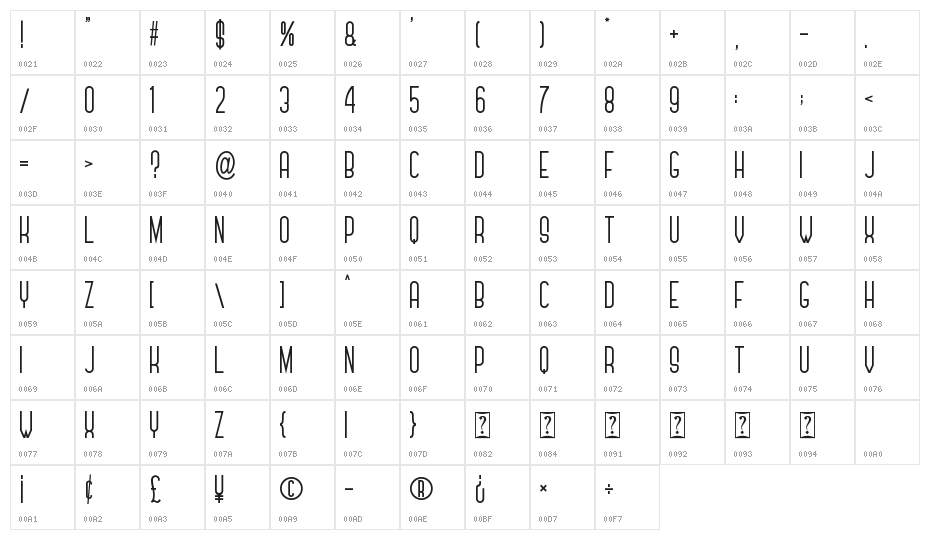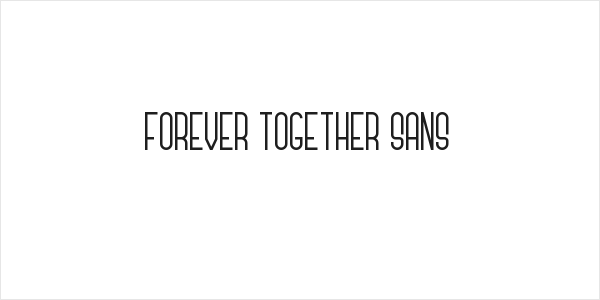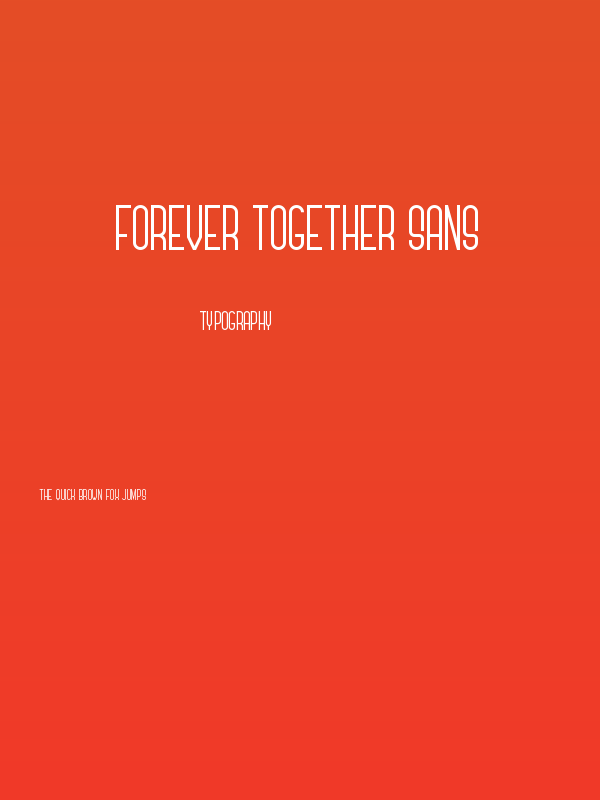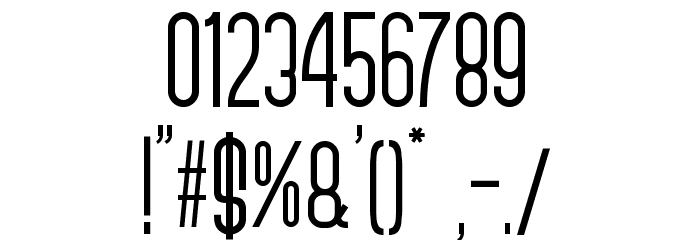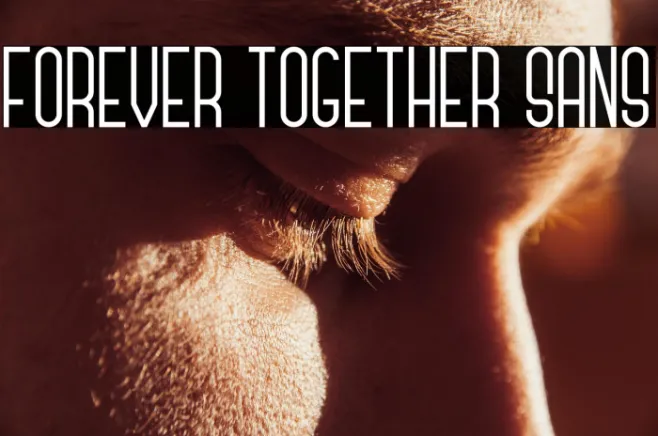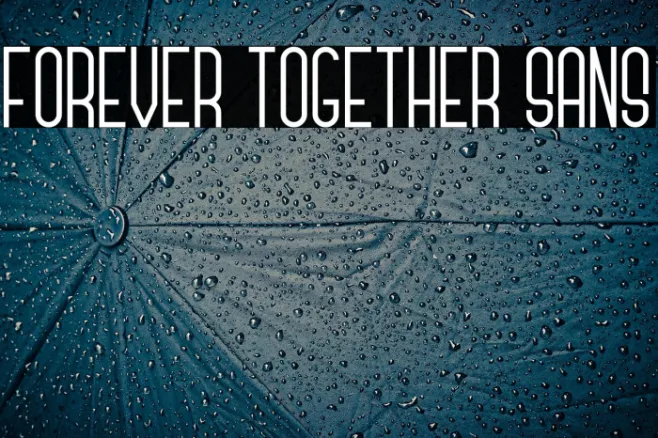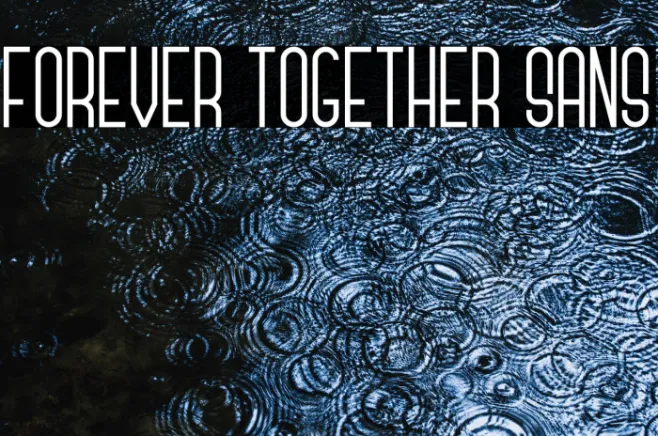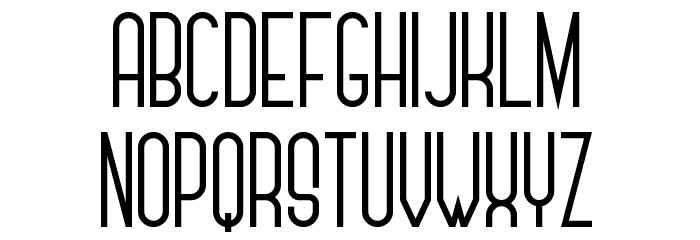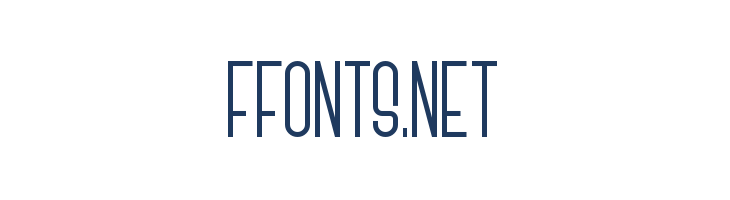
Forever Together Sans Font
Forever Together Sans Description
This font features a modern and sleek design with elongated, narrow characters that convey a sense of elegance and sophistication. The uppercase and lowercase letters are consistent in style, maintaining a uniform height and width that enhances readability. The numerals are distinct and align well with the overall aesthetic, making them suitable for various applications. Special characters are included, providing versatility for different design needs. The clean lines and minimalistic approach make it ideal for contemporary projects.
| Use Case | Headlines, Logos, Editorial Design |
| Proposed Projects | Ideal for branding, editorial design, advertising, and digital media where a modern and sophisticated look is desired. |